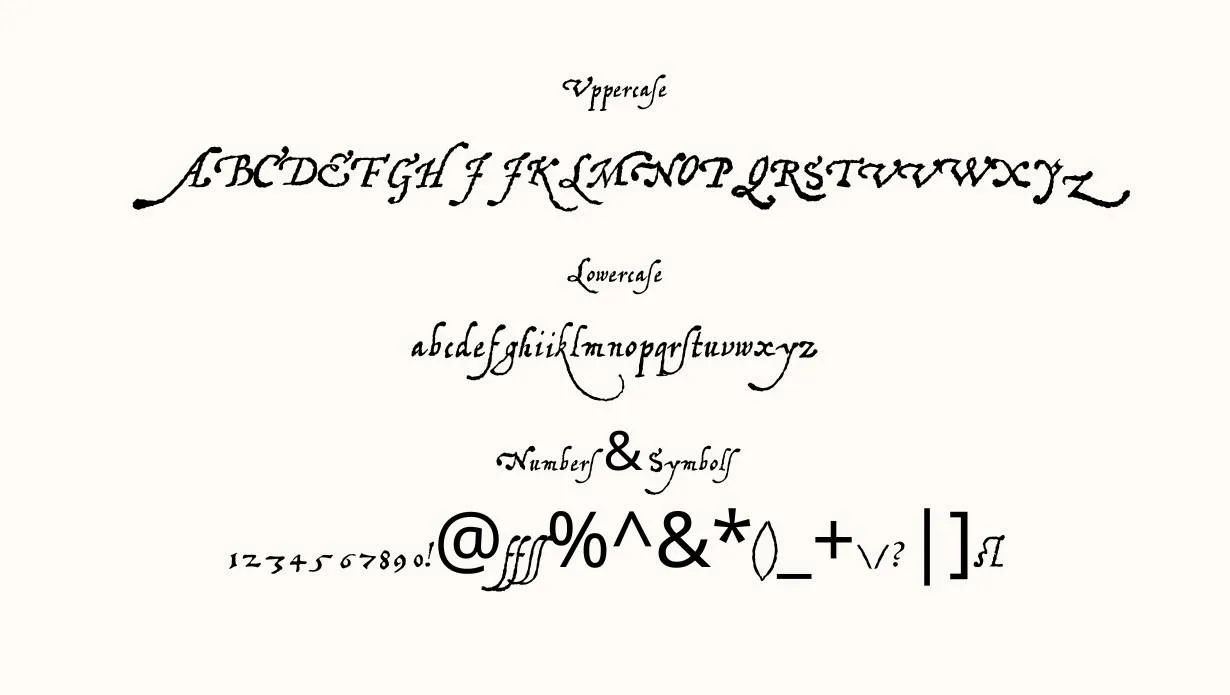
William Shakespeare Font is inspired by the handwriting of the famous playwright William Shakespeare.
It’s often used in literary-themed designs, vintage branding, and projects that aim to capture a sense of history and classical aesthetics.
| Name | William Shakespeare Font |
| Designer | David Nalle |